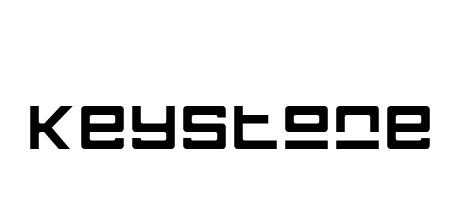
Keystone
By Hreggvidur Arsaelsson
Keystone, a bold sans-serif typeface, exudes a clean, modern aesthetic. Its geometric letterforms, especially the squared-off terminals and consistent stroke weight, create a sense of strength and stability. The design is highly legible, conveying a message of reliability and precision. The font's uniformity makes it suitable for various applications, from logos to headlines.